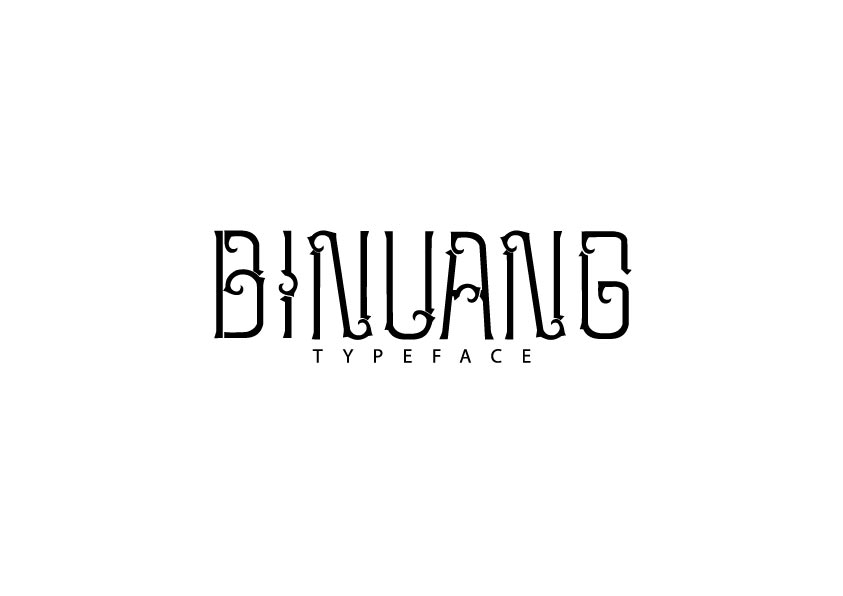
The Binuang Font: A Simple yet Stunning Decorative Font for Designers
I still remember the frustration of working on a project, hours spent searching for the perfect font, only to end up with something that just didn’t quite fit. It was as if the font was trying to be the star of the show, overpowering the message I was trying to convey. That’s when I stumbled upon the Binuang font, a simply decorative font that’s great for headlines and display purposes. ✨
An Honest Review of Binuang Font
What I Love About Binuang Font
- ✅ Easy on the eyes: Binuang has a clean and simple design that’s perfect for making a statement without overwhelming the viewer.
- ✨ Highly versatile: Whether you’re working on a logo, a poster, or a social media graphic, Binuang font fits right in.
- 💡 OpenType features: Binuang font comes with a range of OpenType features, including stylistic alternates and glyphs, that allow you to customize your text to your heart’s content.
While Binuang font is an excellent choice for many design projects, there are a few things to keep in mind. 🤔
- ⚠️ Limited use for body text: Binuang font is best used for headlines and display purposes. It’s not ideal for long blocks of text, as it can be a bit too ornate for easy reading.
- ⚠️ May not work well with all design styles: Binuang font has a distinctive look that may not fit with every design style. For example, it may not be the best choice for a minimalist or modern design project.
The Designer Inspiration Behind Binuang Font
The Binuang font was designed with simplicity and elegance in mind. The designer, who wishes to remain anonymous, was inspired by traditional Indonesian typography and wanted to create a font that was both modern and timeless. The result is a font that’s perfect for designers, crafters, and creative hobbyists who want to add a touch of sophistication to their projects.
Q: What is Binuang font best used for?
A: Binuang font is best used for headlines and display purposes, such as titles, logos, and posters.